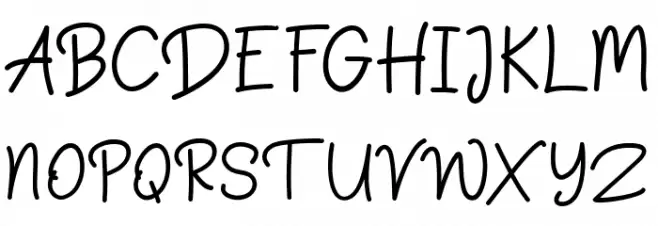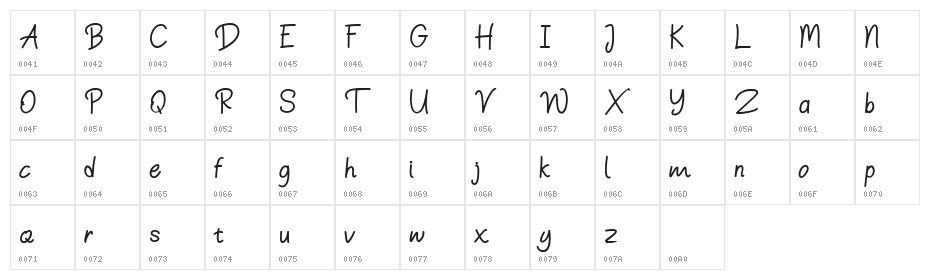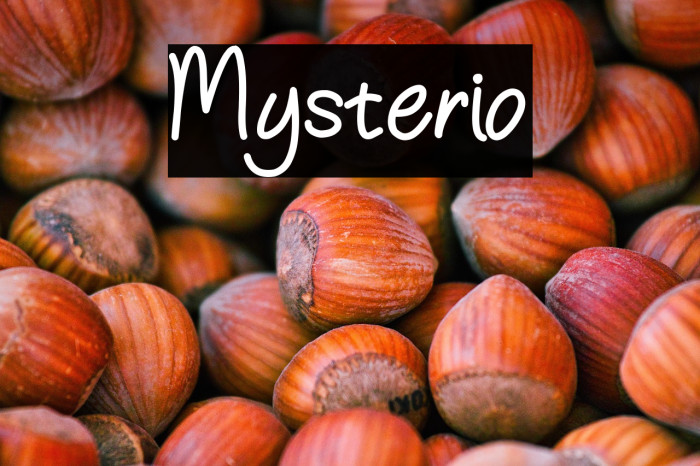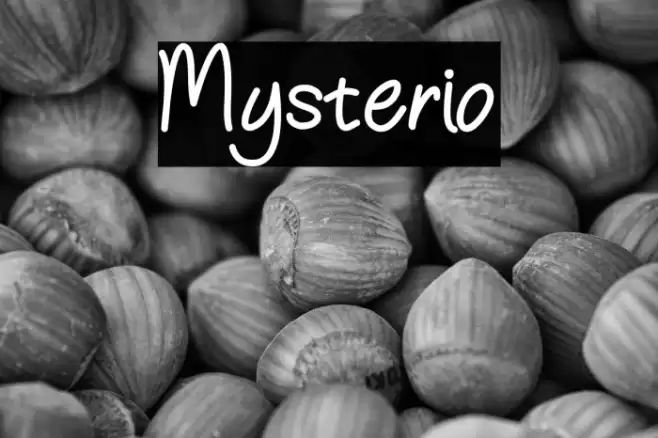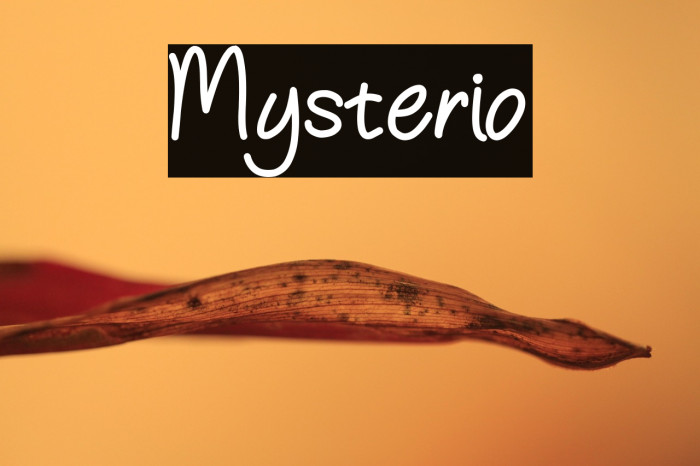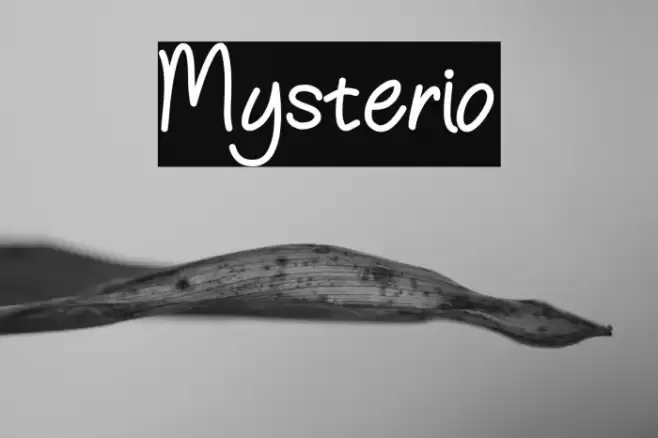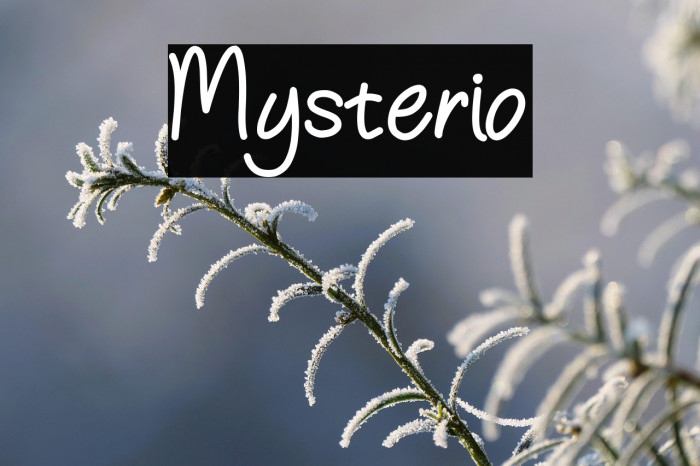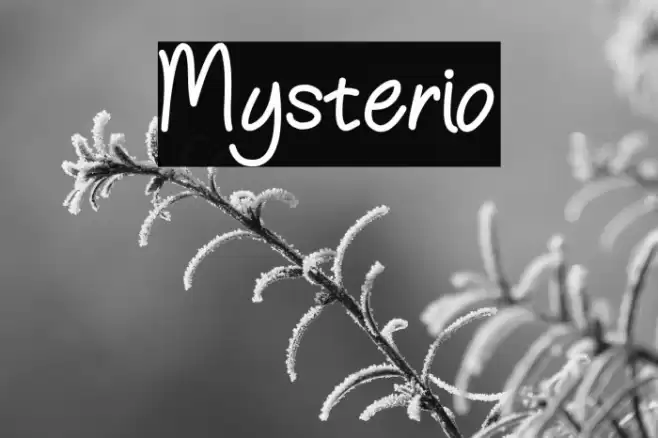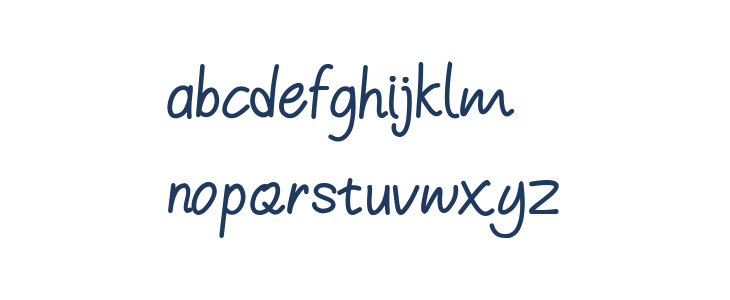
Mysterio Font
Mysterio Description
This font features a playful and casual handwritten style, characterized by its smooth, flowing lines and slightly irregular shapes. The uppercase letters are tall and narrow, while the lowercase letters maintain a consistent height, adding to the font's approachable and friendly appearance. The strokes are uniform in thickness, contributing to a clean and legible look. The overall design is informal yet stylish, making it suitable for a variety of creative projects. The font's unique charm lies in its ability to convey a sense of warmth and personality, making it ideal for personal branding, invitations, and other projects that require a touch of individuality.